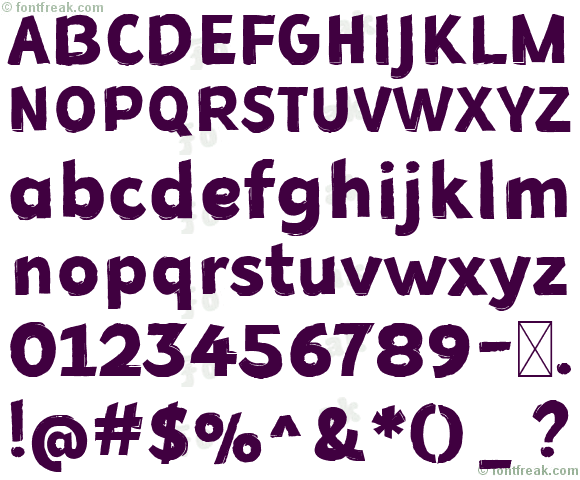
November Night
About November Night
November Night by Misti Hammers is a distinctive display font that captures the essence of autumn evenings with its unique character and charm. This freeware font showcases a bold, yet playful design that is perfect for various creative projects. The typeface features a moderate stroke weight, providing a sturdy presence while maintaining an inviting aesthetic. The contrast is subtle, with rounded edges and a slightly uneven texture that adds a hand-crafted feel. The spacing between the letters is well-balanced, allowing for easy readability, making it suitable for both headlines and body text.
This font is ideal for a range of applications. Its whimsical style makes it an excellent choice for wedding invitations, where a touch of elegance is desired. Additionally, it can enhance the visual appeal of movie posters, particularly for indie films that aim to evoke a sense of nostalgia. Restaurant menus will also benefit from the warm and welcoming vibe of November Night, inviting diners to experience a cozy atmosphere. Content creators and graphic designers will find this font useful for social media graphics and promotional materials, as it stands out without being overly aggressive.
Targeting graphic designers, small business owners, and content creators, November Night is versatile enough to suit various branding needs. Its unique visual flair can help businesses establish a memorable identity while appealing to their audience's emotions.
What sets November Night apart is its ability to blend playfulness with sophistication. The font embodies the spirit of late autumn nights, making it a perfect choice for projects that seek to evoke warmth and nostalgia. With the November Night font free download, you can easily incorporate this captivating typeface into your creative repertoire, enhancing your designs with its distinctive charm.